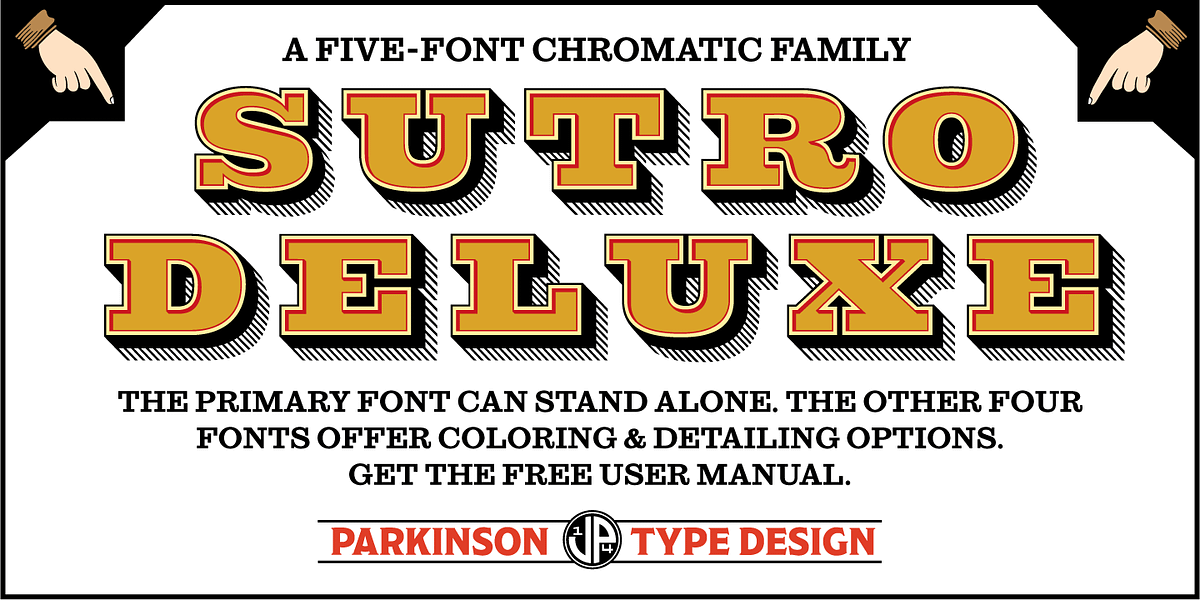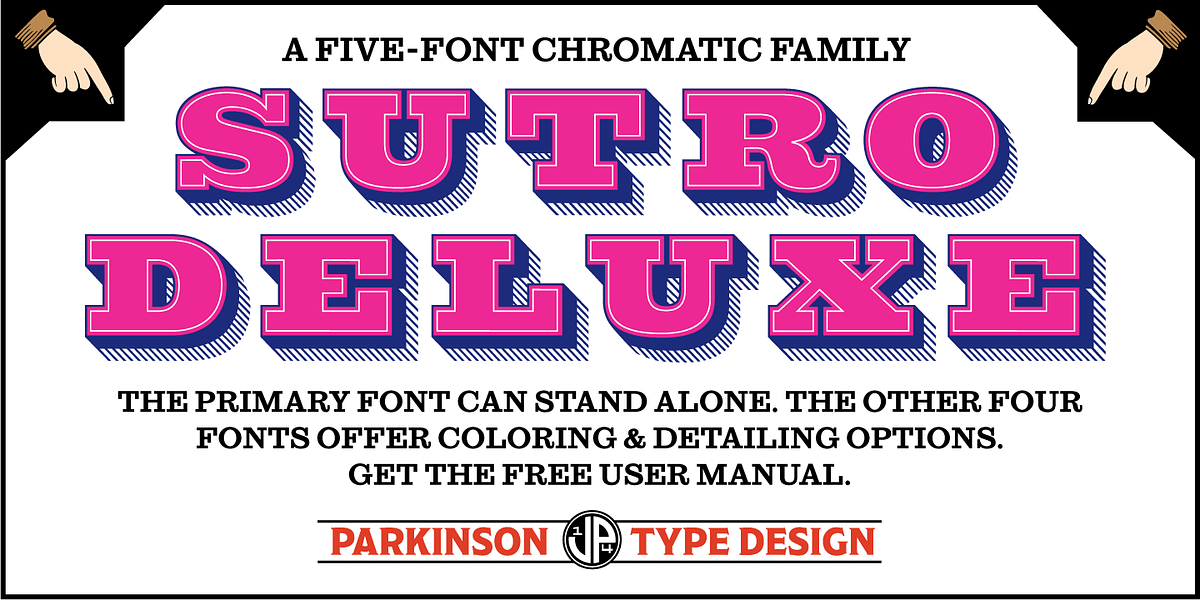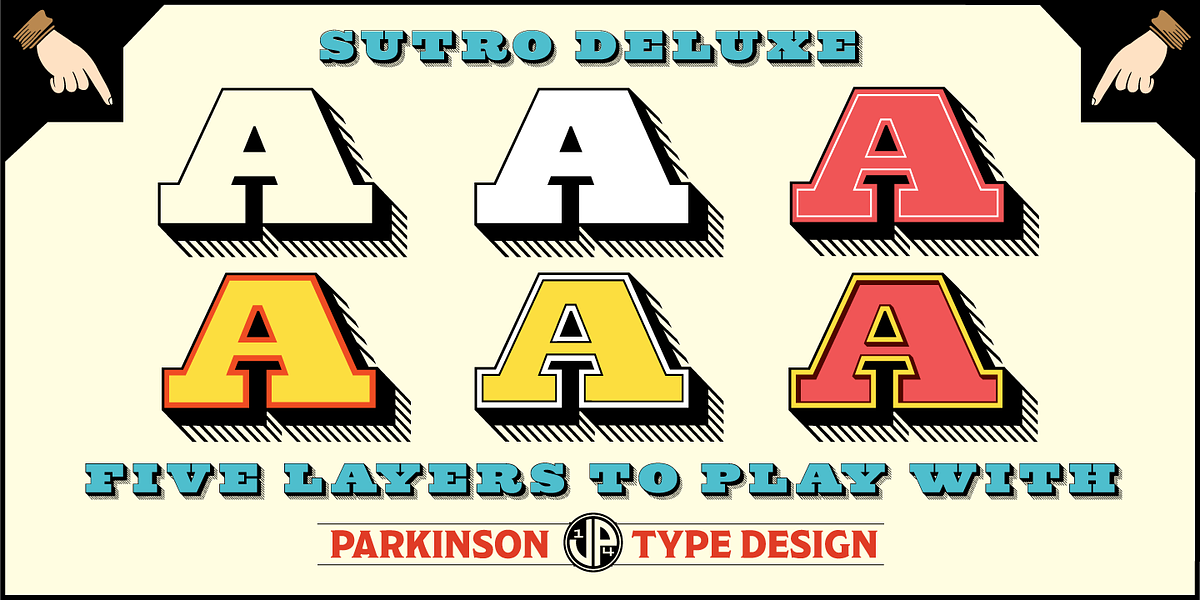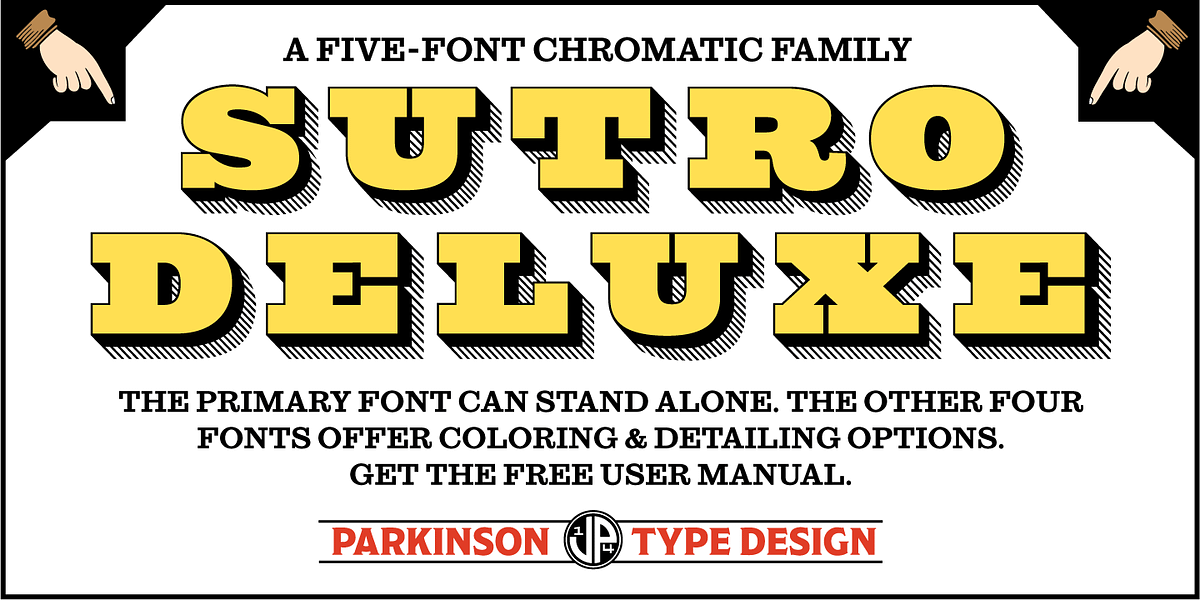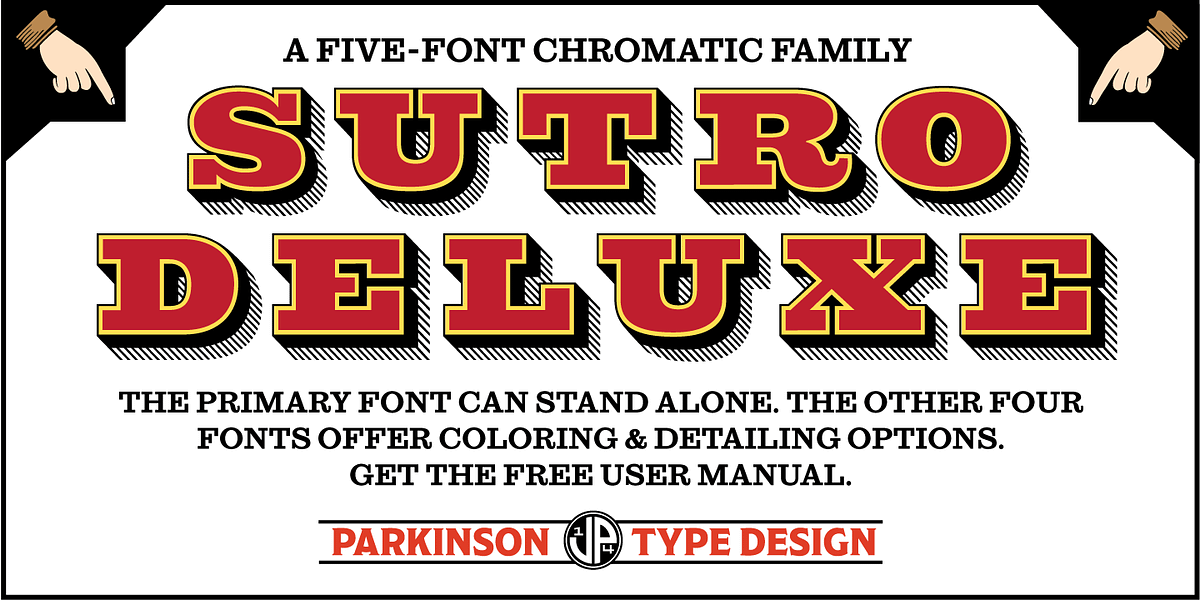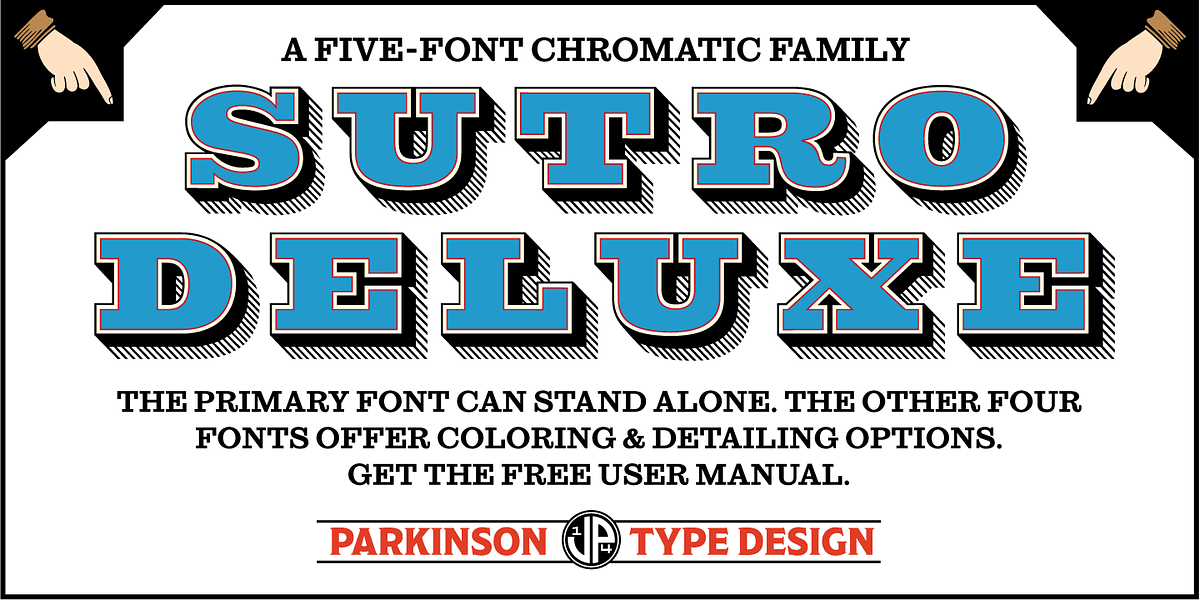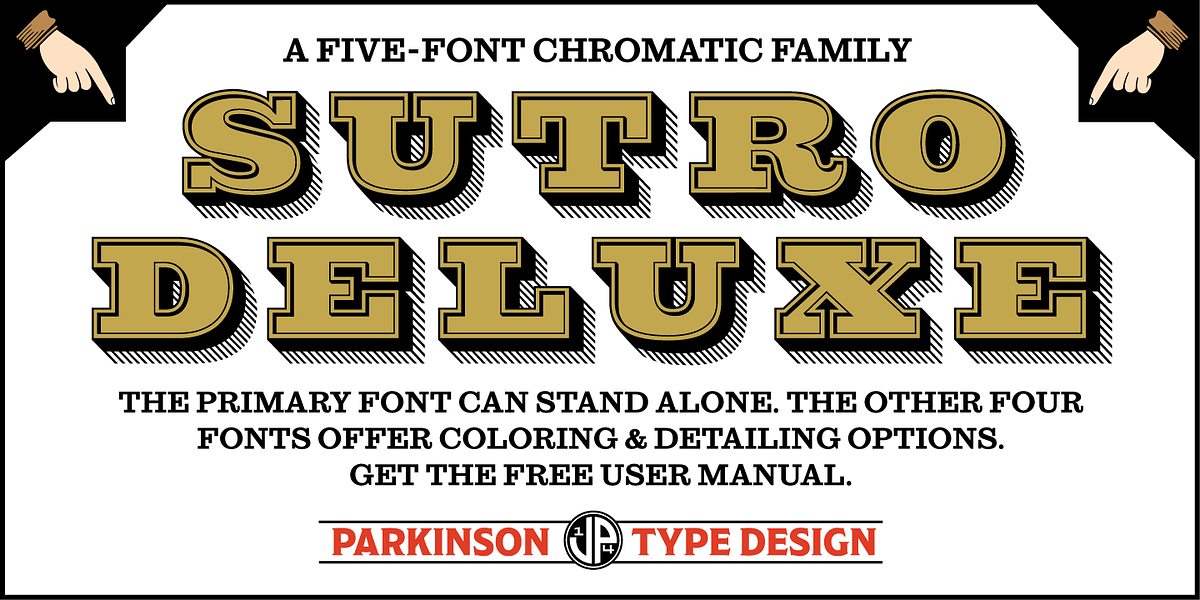
Sutro Deluxe
Sutro Deluxe is a five-font family designed for display purposes. It features a primary font with accompanying fill, inline fill, inline, and inline shaded fonts to create a layered, three-dimensional effect. The font is all caps and generated as a simple OpenType.